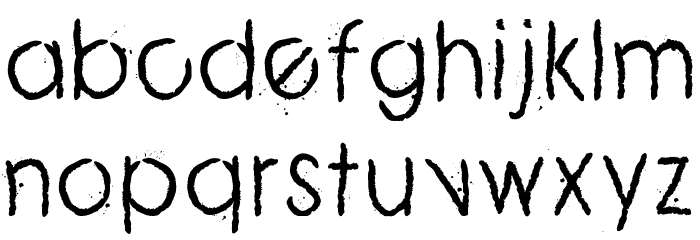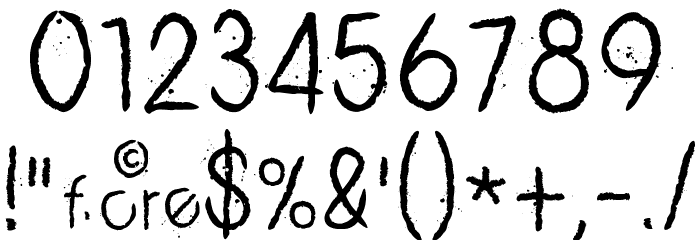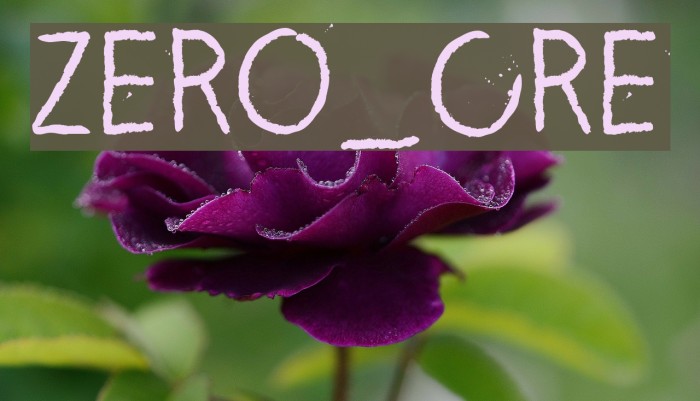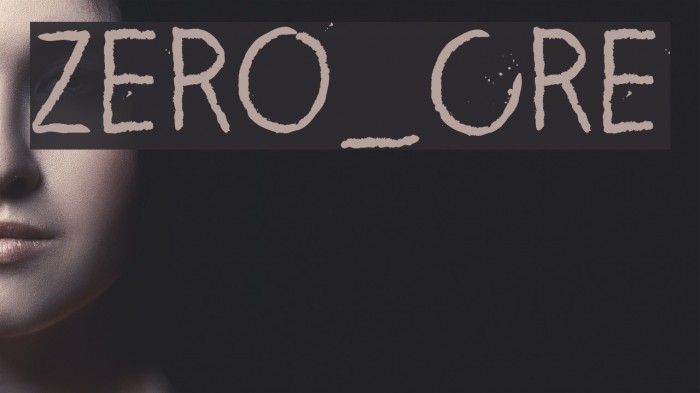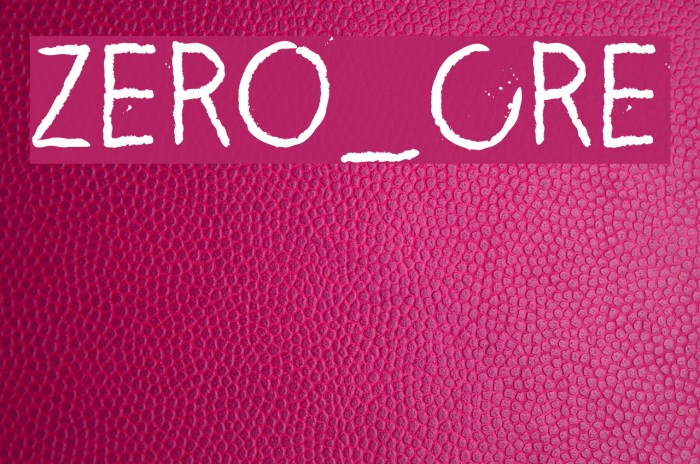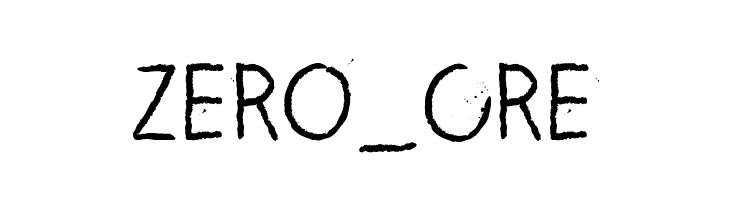
ZERO_CRE Font
This font features a hand-drawn, organic style with a slightly rough texture, giving it a casual and approachable appearance. The letters are evenly spaced with a consistent stroke width, creating a balanced look. The uppercase letters are tall and narrow, while the lowercase letters maintain a similar height, contributing to a cohesive design. The numerals and special characters follow the same aesthetic, ensuring uniformity across all glyphs. This font's unique character is perfect for projects that require a personal touch or an informal vibe.
A hand-drawn, textured font with a casual and approachable style.
- Proposed Projects: Ideal for greeting cards, invitations, children's books, and creative branding projects.
- Overall Style: Casual, Organic
- Use Case: Headlines, Logos, Informal Text